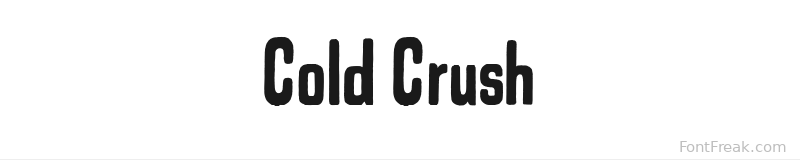
Cold Crush
About Cold Crush
Cold Crush by BLKBK Fonts is a striking display font that captures attention with its bold, modern aesthetic. This font is characterized by its thick, rounded strokes that create a sense of warmth and approachability, making it ideal for a variety of creative projects. The clean lines and balanced spacing enhance readability while adding a touch of personality, setting it apart from more traditional typefaces. The overall visual style is contemporary with a hint of playfulness, making it suitable for diverse applications.
The Cold Crush font shines in several specific use cases. It is perfect for eye-catching movie posters, where its boldness can draw in viewers. Additionally, it works well for vibrant restaurant menus, giving an inviting feel that can enhance the dining experience. Graphic designers will find it suitable for branding projects, as it conveys a modern flair that resonates with younger audiences. Furthermore, this font can elevate promotional materials for events, such as music festivals or art shows, where the aim is to create a memorable impression.
What sets the Cold Crush font apart is its ability to combine boldness with warmth, creating an inviting yet striking visual impact. Its unique style allows it to stand out in a crowded market, making it an excellent choice for anyone looking to make a statement. For those interested, the Cold Crush font free download offers an opportunity to explore its potential in a multitude of creative endeavors.